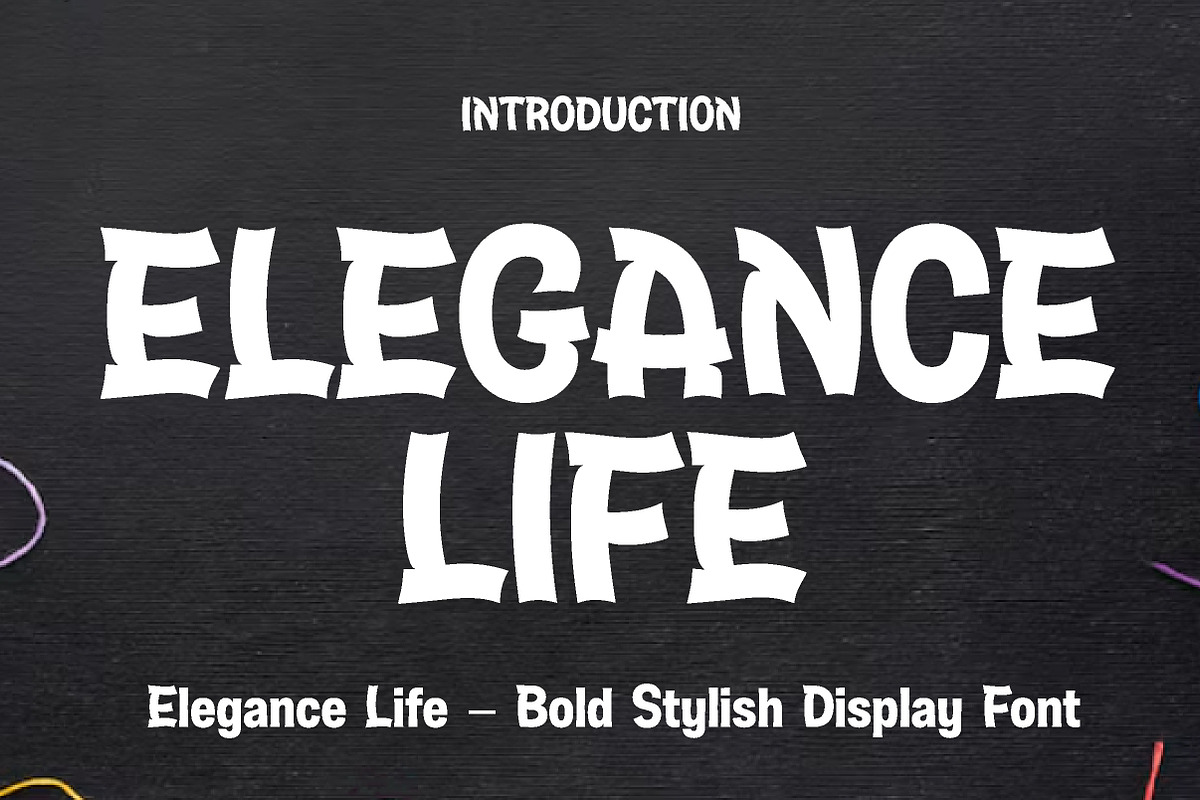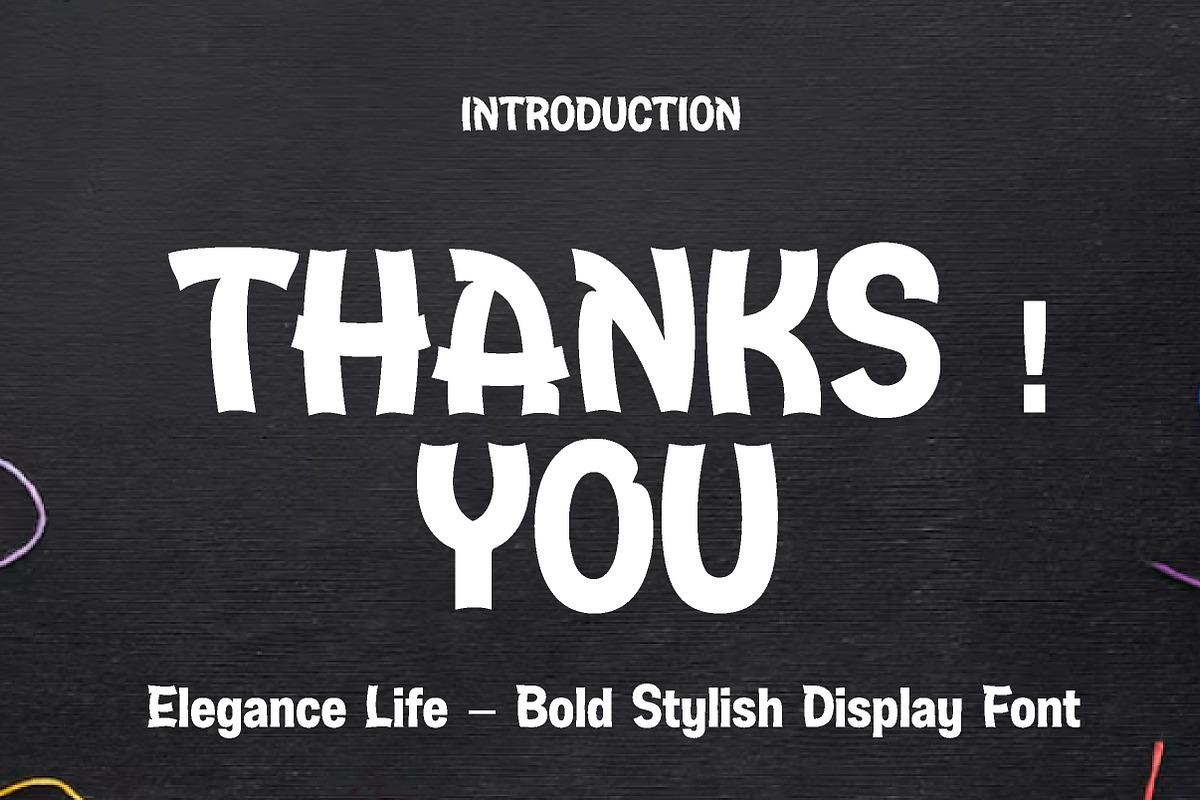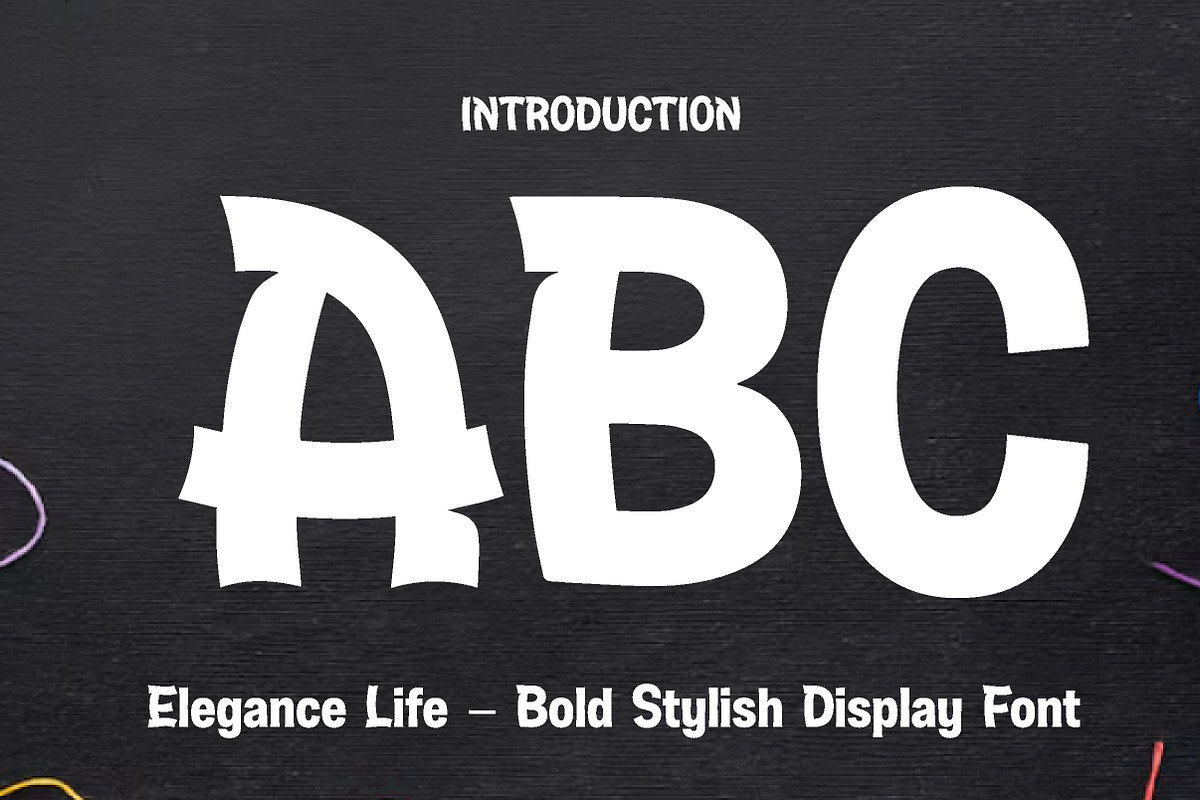
Elegance Life
Elegance Life – Bold Stylish Display Font
Elegance Life is a bold, stylish, and expressive display font, perfect for branding, posters, packaging, headlines, logos, and standout creative projects.
Elegance Life is a bold display font designed to bring confidence, style, and personality into your designs. With its strong letterforms, playful curves, and unique decorative details, this font creates an eye-catching look that feels both modern and artistic.
Its bold and expressive style makes Elegance Life perfect for projects that need a memorable visual impact. Whether you are creating branding materials, posters, packaging, social media graphics, logo concepts, merchandise, or headline typography, this font helps your text stand out with charm and character.
The solid structure keeps your typography readable, while the creative shapes add a distinctive and stylish personality. Suitable for both print and digital use, Elegance Life is a great choice for designers who want a font that feels bold, elegant, and full of attitude.
Perfect For Branding and logos Posters and headlines Product packaging Social media graphics Merchandise design Editorial titles Advertising materials Website headers Creative display typography Stylish visual identities Font Features Uppercase letters Lowercase letters Numbers & punctuation Bold display style Stylish decorative shapes Strong and expressive look Perfect for display use